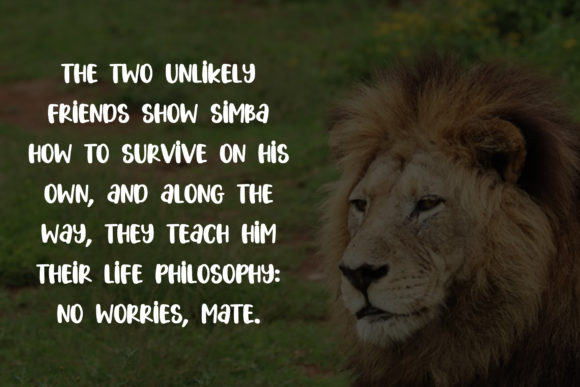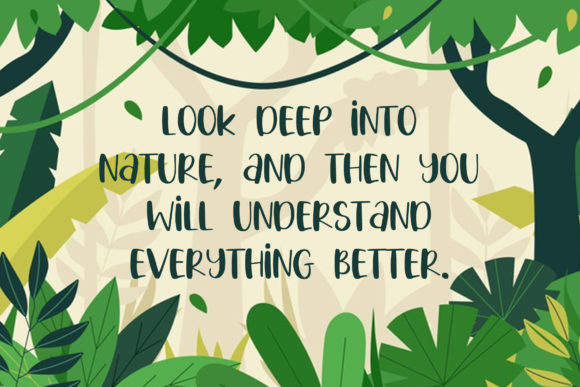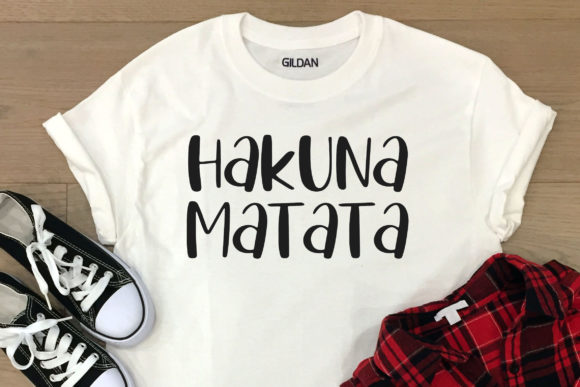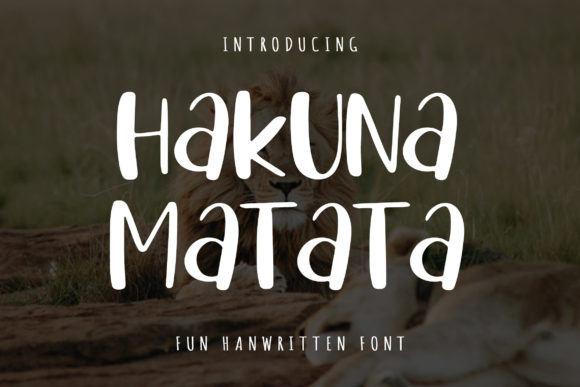
Hakuna Matata Font: The Ultimate Display Font for Creative Projects
Are you tired of using the same old fonts for your creative projects? Look no further than the Hakuna Matata font, a cool, refreshing, and neat-looking display font that’s sure to elevate your designs. With its unique and stylish aesthetic, Hakuna Matata is an incredible asset to any font library, regardless of the topic or theme.
What is Hakuna Matata Font?
Hakuna Matata font is a display font designed to add a touch of fun and sophistication to your designs. The name “Hakuna Matata” is a Swahili phrase that means “no worries,” and this font embodies that carefree spirit. With its clean lines, smooth curves, and playful flair, Hakuna Matata is perfect for designers and crafters looking to add some personality to their work.
Key Features of Hakuna Matata Font
- Unique and Stylish Aesthetic: Hakuna Matata font has a distinctive look that’s both modern and timeless. Its unique blend of bold and delicate lines makes it perfect for headlines, titles, and other display text.
- High Versatility: Whether you’re designing a logo, brochure, or social media post, Hakuna Matata font adapts seamlessly to any format or style.
- Easy to Read: Despite its bold and playful appearance, Hakuna Matata font is surprisingly easy to read, making it perfect for body text as well as headlines.
- Multilingual Support: Hakuna Matata font supports multiple languages, making it a great choice for designers working on international projects.
Use Cases for Hakuna Matata Font
Hakuna Matata font is an incredibly versatile font that can be used in a wide range of creative projects, including:
- Branding and Logo Design: Hakuna Matata font is perfect for creating bold and eye-catching logos that make a statement.
- Advertising and Marketing Materials: Use Hakuna Matata font to add some personality to your ads, brochures, and other marketing materials.
- Social Media Graphics: Hakuna Matata font is a great choice for social media graphics, including Facebook posts, Instagram stories, and Twitter headers.
- Packaging Design: Add some flair to your product packaging with Hakuna Matata font, perfect for labels, tags, and other packaging materials.
Tips for Using Hakuna Matata Font
To get the most out of Hakuna Matata font, here are a few tips to keep in mind:
- Use it Boldly: Hakuna Matata font is designed to make a statement, so don’t be afraid to use it in bold and eye-catching ways.
- Experiment with Colors: Hakuna Matata font looks great in a wide range of colors, so don’t be afraid to experiment and find the perfect hue for your design.
- Pair it with Other Fonts: Hakuna Matata font pairs well with a wide range of other fonts, so feel free to get creative and experiment with different combinations.